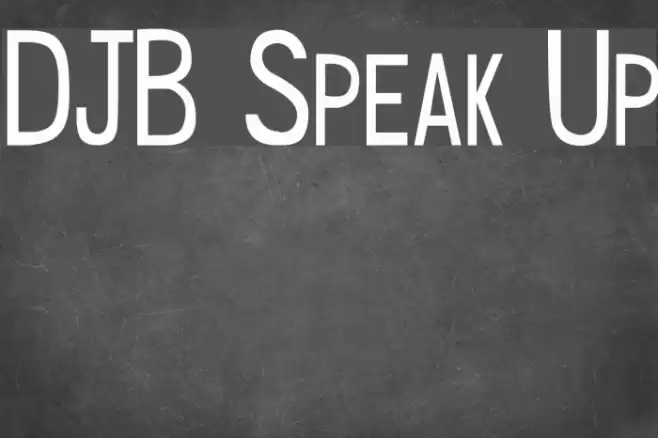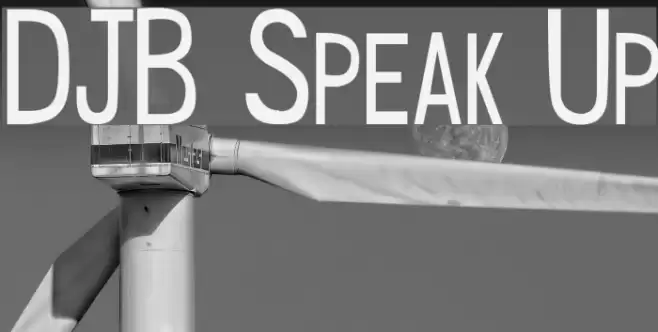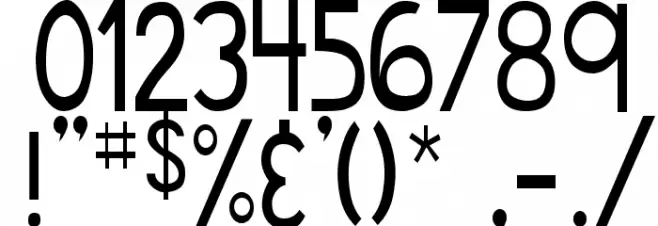
DJB Speak Up Font
DJB Speak Up Description
This font features a clean, modern sans-serif design with uniform stroke widths and a geometric structure. The characters are well-proportioned, offering a balanced and legible appearance. The uppercase and lowercase letters maintain a consistent style, while the numerals and special characters complement the overall aesthetic. Its simplicity and clarity make it versatile for various design applications.
- Proposed Projects: Ideal for branding, editorial design, web design, and advertising where clarity and modernity are desired.